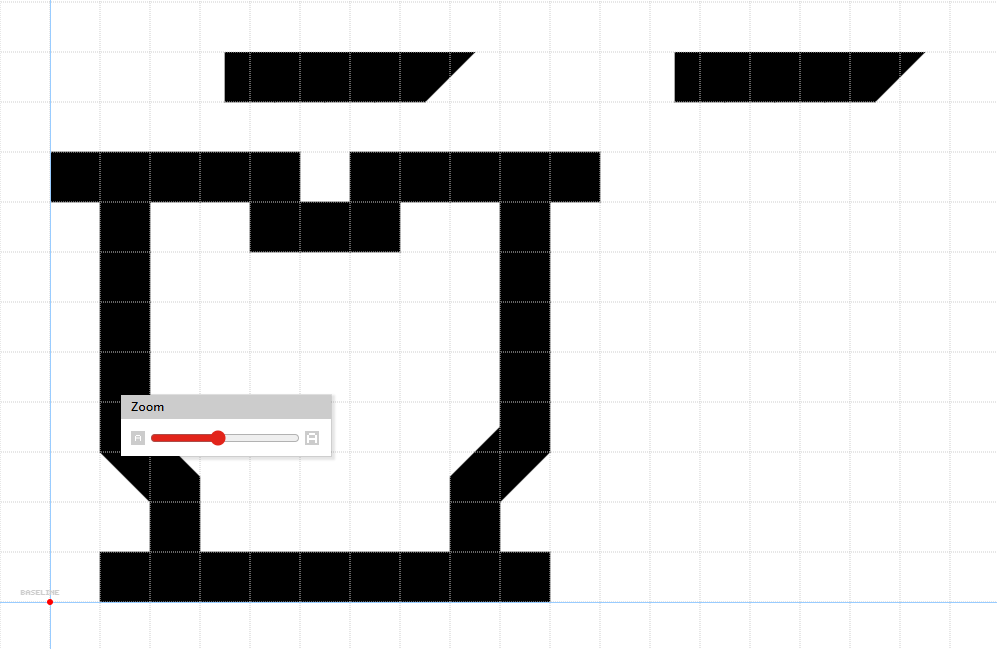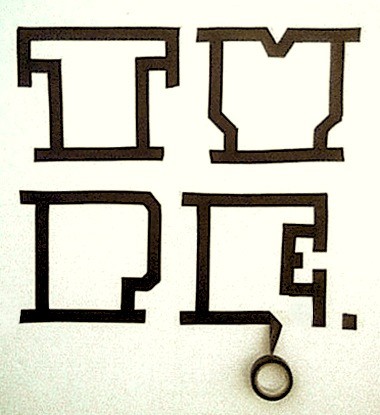
The adhesive black tape is good for plumbing and many other things. Add to us and type with it, it's cheap and funny.
LOVE it. Super stylish and contemporary feeling. The sample is excellent and really brings it home. In my opinion, your best Struct yet.
Wow nice font and nice Handmade.
The Desing is awsome
I think the time has come for you to perhaps kerb your humility... you're obviously an adept fontstructor.
Great idea and a very nice sample.
This challenge has been very funny for me: I've cut letters, I've put some others in the oven and I've built the last ones with tape on the wall ... All in barely two weeks.
Very good technique to crossover from modular to organic. Great design too.
excellent entry. your fonts always seem very comfortable in their skin - if you know what i mean. they are well done and have a great energy. and possess a very natural and organic feel. just like this one. and your sample is exquisite.
The dangling tape is excellent.
@elmoyenique The lowercase Y with Acute it has another accent mark on the side.
zcell rnd eYe/FSby elmoyenique